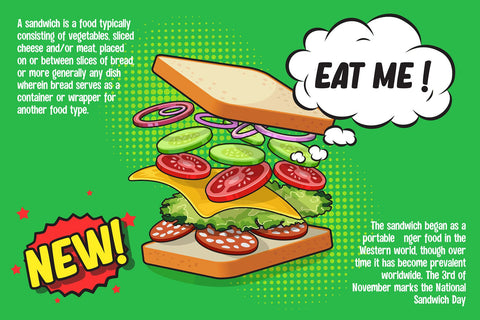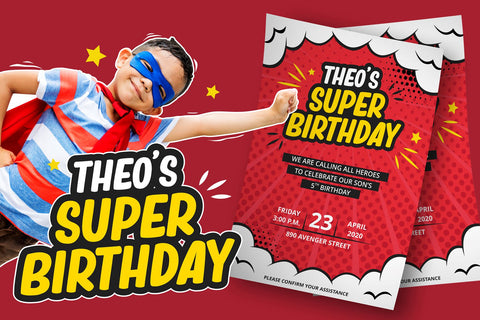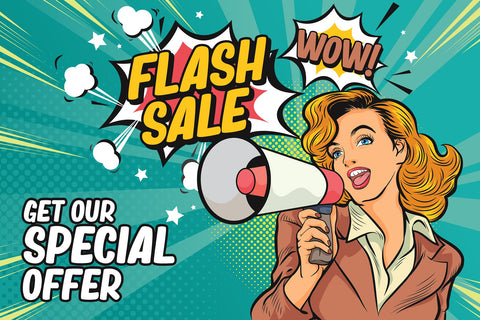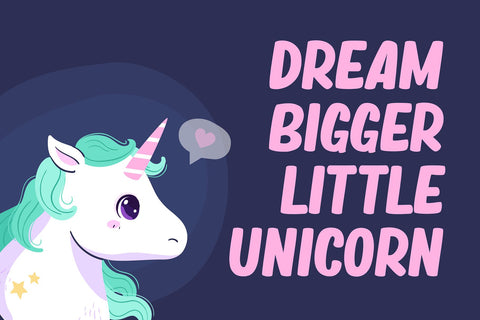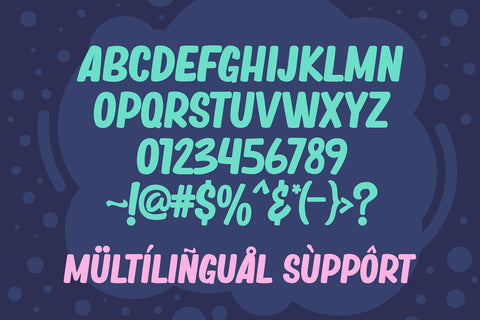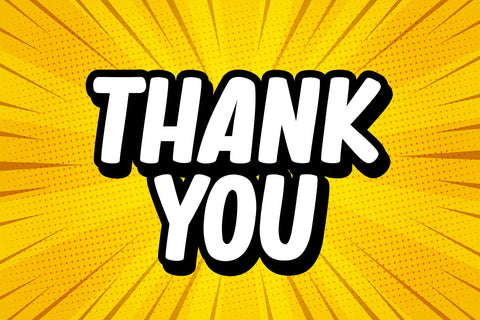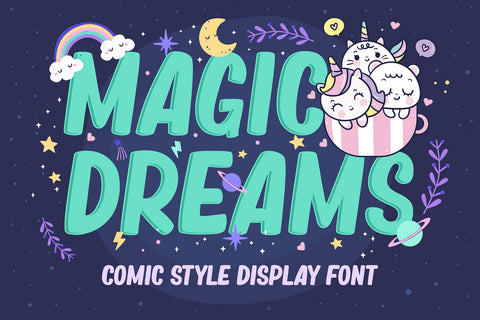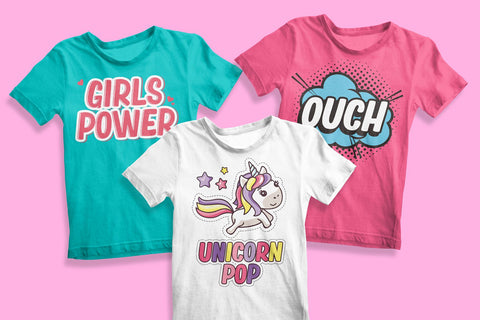
Magic Dreams - Comic Display Font
Say hello to Magic Dreams font.
Made with love and joy. Comic look, so it will make your design more beautiful, cute, fun, and colorful.
- Character Set A-Z (All-caps)
- Numerals and Punctuation (OpenType Standard)
- Accents (Multilingual characters)